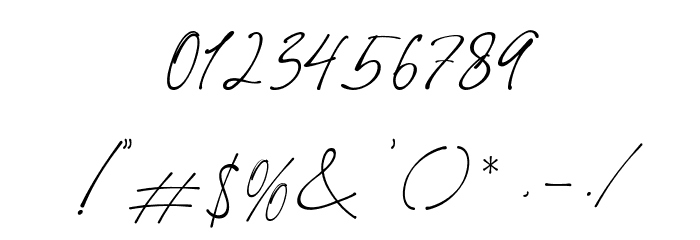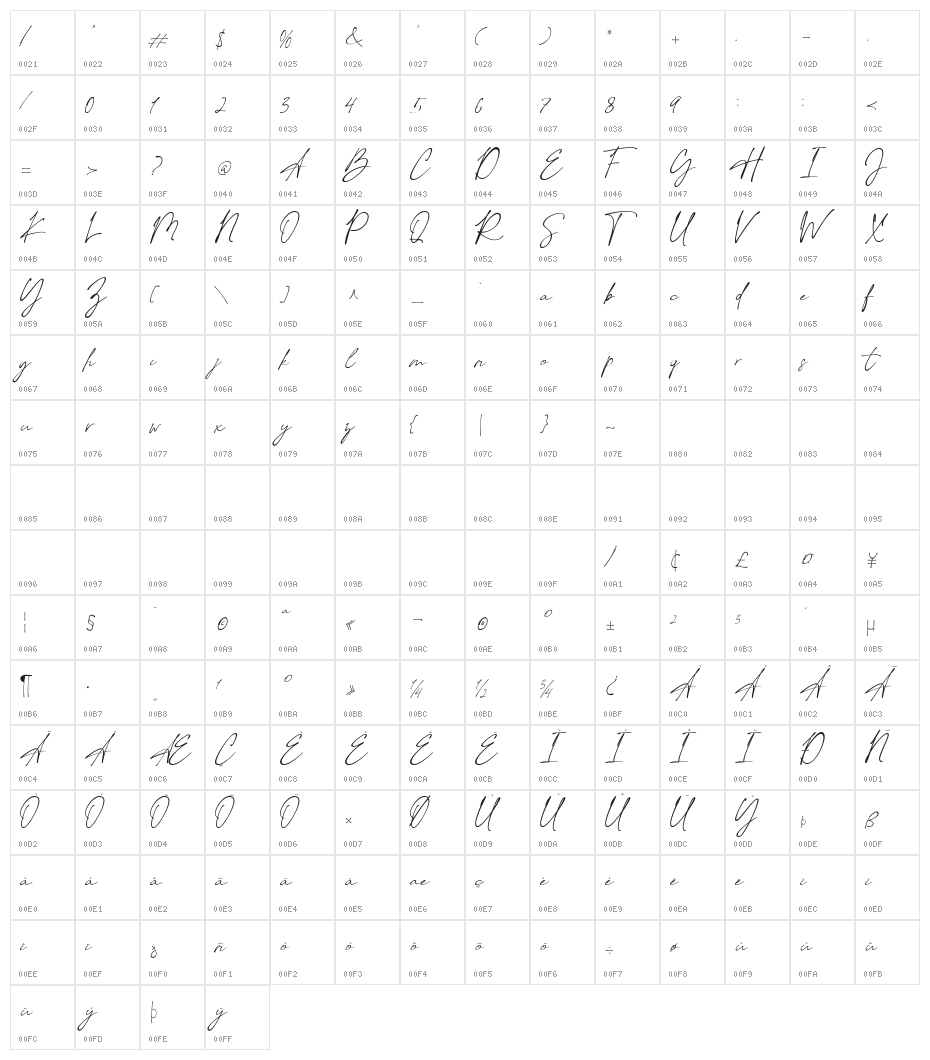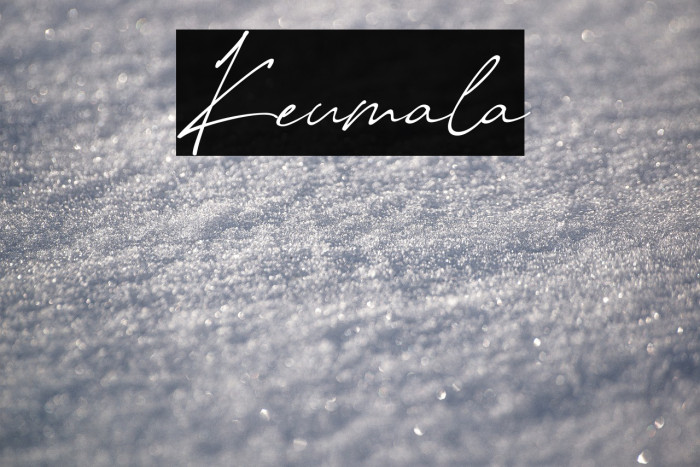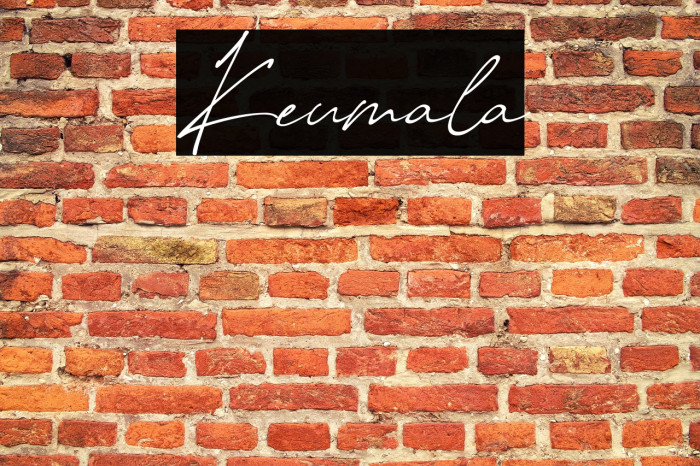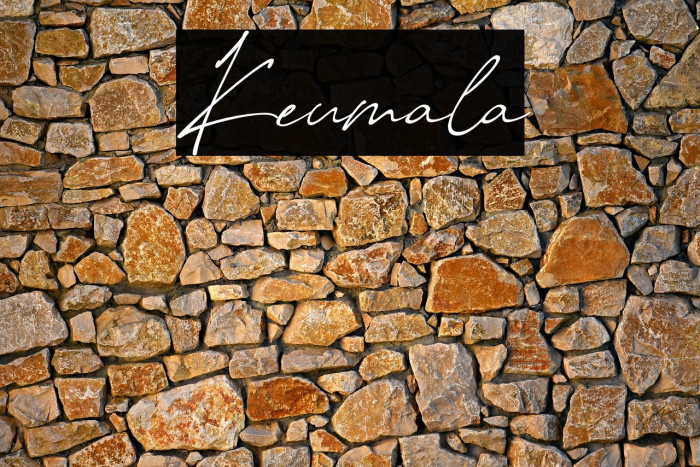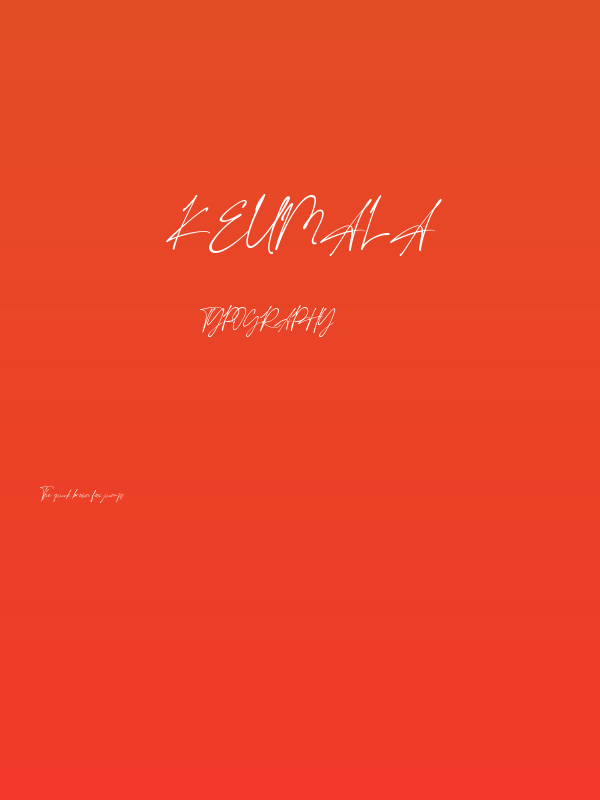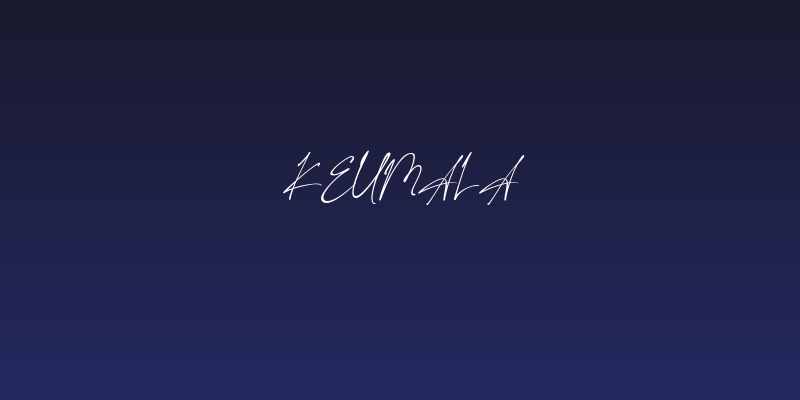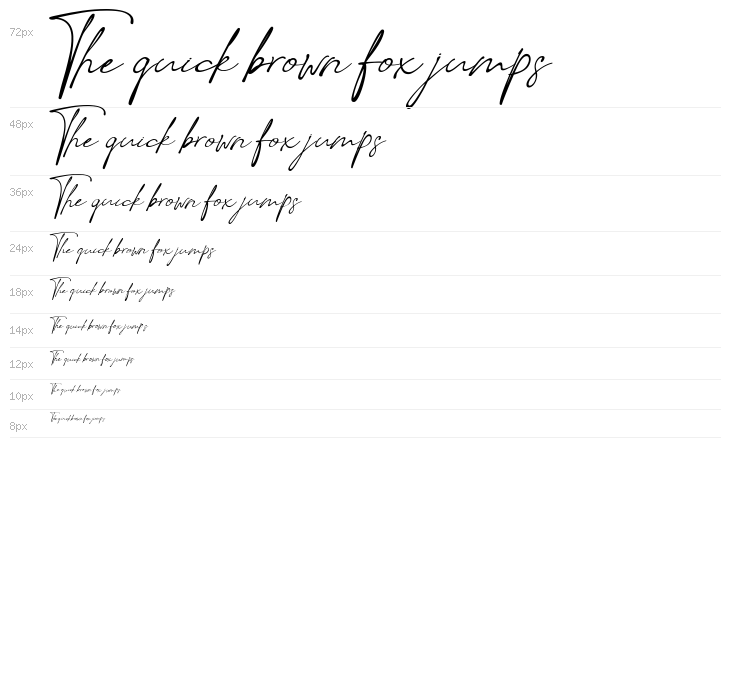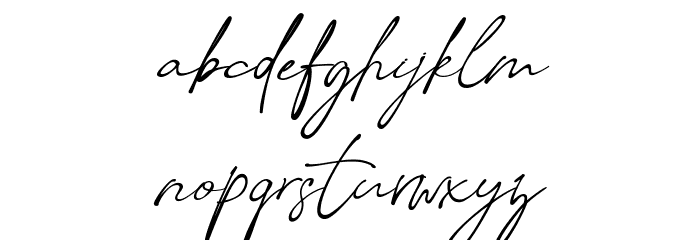
Keumala Font
Keumala Description
This font features a flowing, cursive style with elegant, sweeping strokes that give it a handwritten appearance. The letters are connected, creating a continuous flow that enhances its script-like quality. The uppercase letters are bold and expressive, while the lowercase letters maintain a delicate and refined look. The numbers and special characters are consistent with the overall style, adding to its cohesive design. This font is ideal for projects that require a personal touch, such as invitations, greeting cards, and branding materials. Its artistic flair makes it suitable for decorative purposes, while its readability ensures it remains functional.
| Proposed Projects | Ideal for invitations, greeting cards, branding, and decorative purposes. |